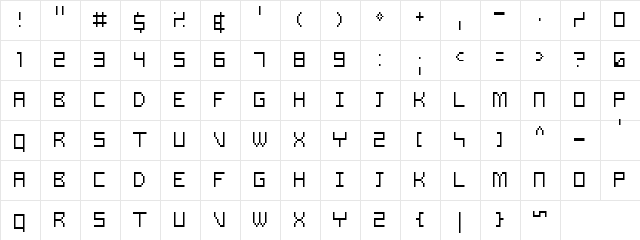
Samson Thin
| Foundry | Meir Sadan |
| Designer | Meir Sadan |
Design Context for Samson Typeface
Samson offers clean, dependable letterforms without strong stylistic allegiance, making it a practical choice for designers who need flexibility. Its slender proportions lend an understated elegance to any composition.